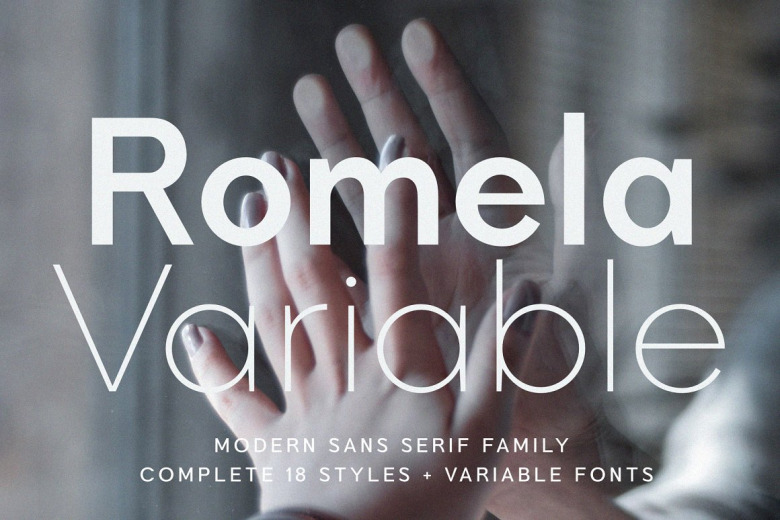
Romela Font
Romela — geometric Sans Serif family Including 9 weights from Thin to Wide which has cursive italic. A mix of mod and 70s geometry with a light, clean, decorative finish; sophisticated, warm, eccentric, and readable.
Designed for reading experience and perfect in large and longer text, and it also works well with display purposes and headers and which can be used for web as well as mobile application and stationary design, such as posters, magazines, websites, branding, apps and all other related creative display designs.
Romela Sans Serif Font